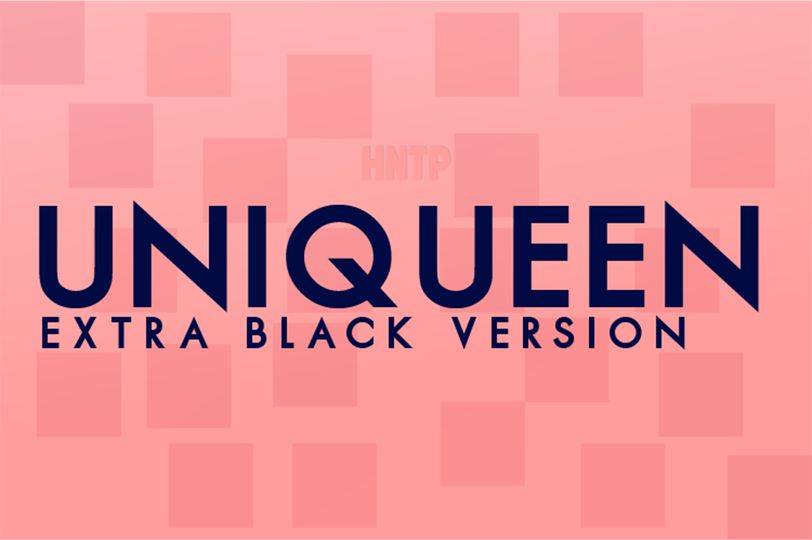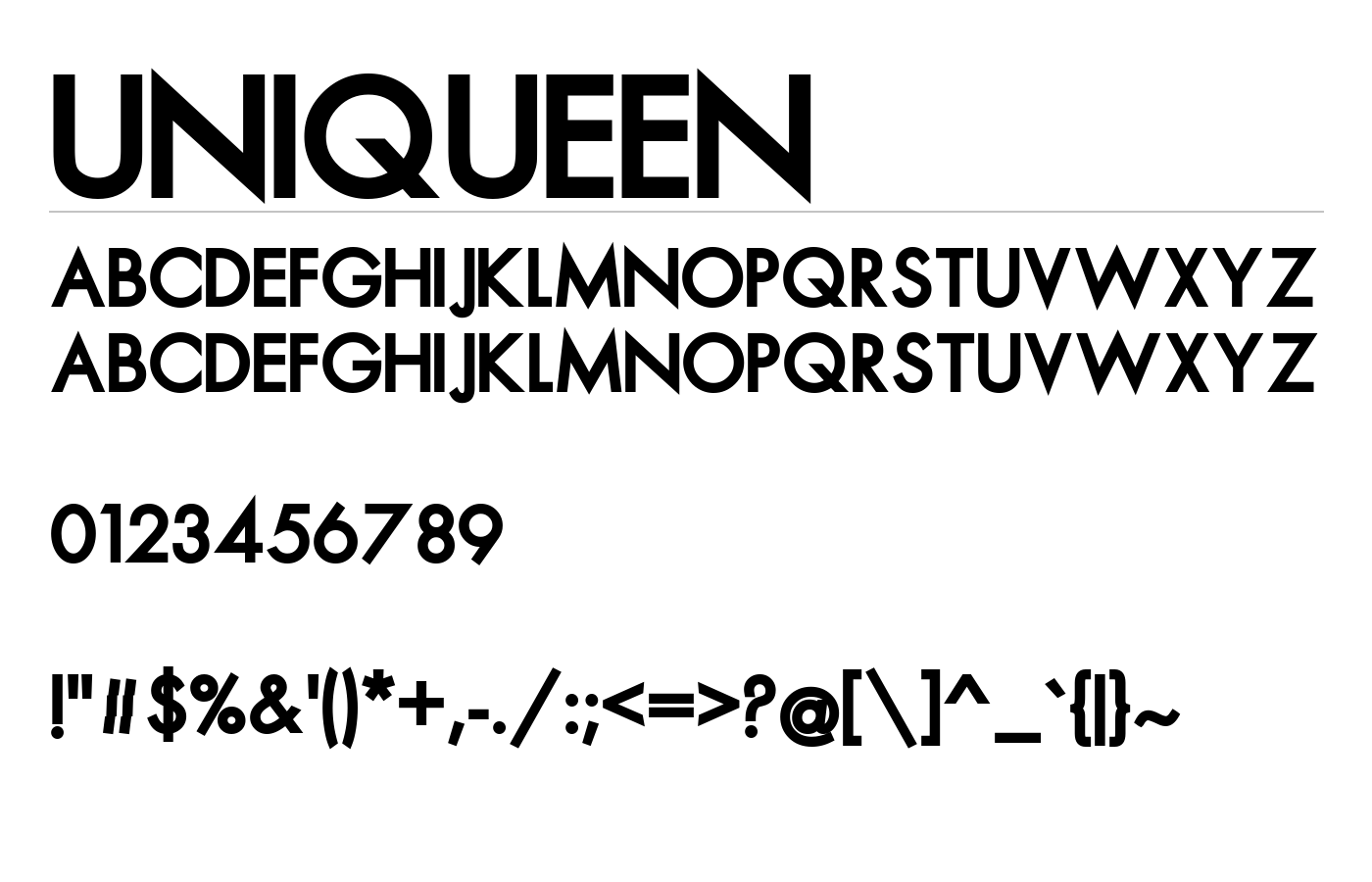
Uniqueen is a bold, geometric sans serif font with a modern and clean appearance, featuring sharp angles and consistent stroke widths. Its high x-height and tightly spaced letterforms make it strikingly readable and ideal for impactful headlines, branding, and contemporary design projects seeking a confident and stylish expression.
Uniqueen Font
About Uniqueen Font